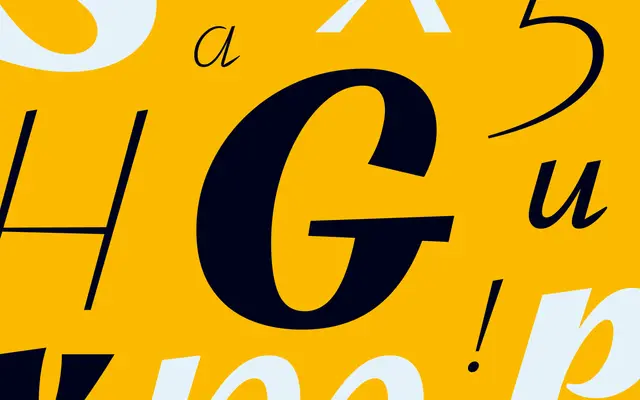
Minetto
Dalton Maag · Radek Lukasiewicz
A broad-nib display script by Radek Lukasiewicz that revives 1930s commercial scripts and runs across a full Weight axis.
A broad-nib display script by Radek Lukasiewicz that channels the elegant commercial scripts of the 1930s with a calligraphic flair. The variable font runs Weight from Hairline to Black, supported by swash capitals, period-style alternates and a short x-height. Built for all-caps titling, packaging, mastheads and posters where you want unashamed retro charm with the discipline of a contemporary type system.
Dalton Maag describe Minetto as a contemporary take on the effortlessly elegant broad-nib display scripts that dominated commercial design in the 1930s, unashamedly retro but designed to satisfy modern users with an extensive Weight axis.